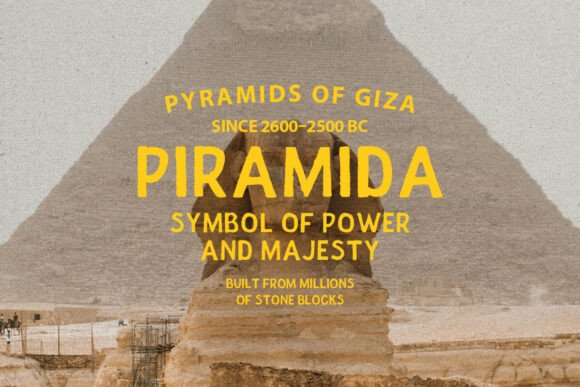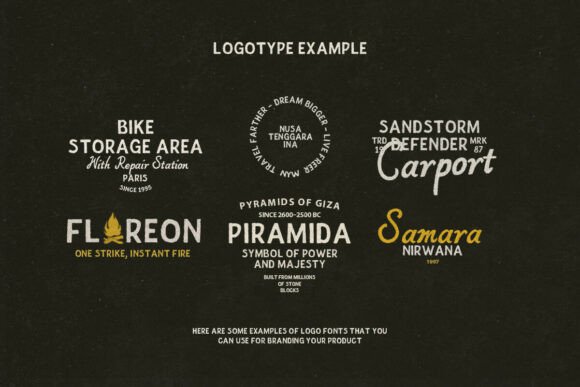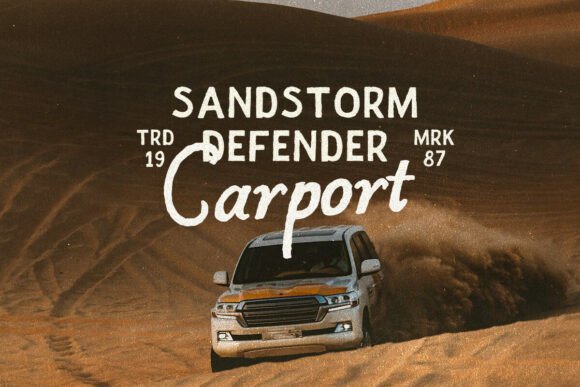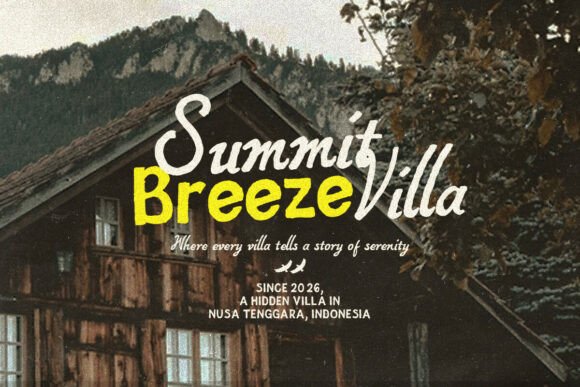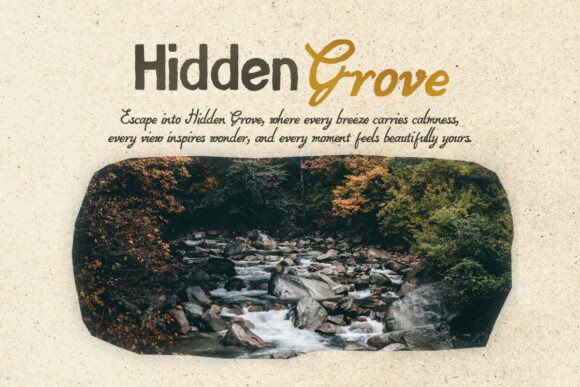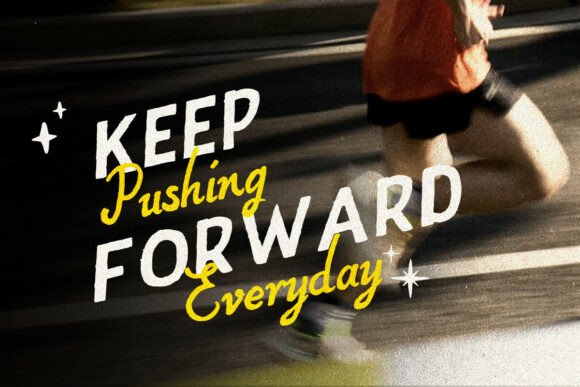
Introduction to Highland Wanders Font
Highland Wanders is a rough hand-drawn font duo.
Comes with simple sans and italic script that will complement each others You can use this font for any purposes such as poster, outdoor project design, handmade greeting card, quotes, looking good for logotype and branding that needs handmade touch.
Highland Wanders Font offers exceptional quality and versatility, making it a valuable addition to your design toolkit. Whether you’re creating for personal projects or commercial use, Highland Wanders Font delivers professional results.